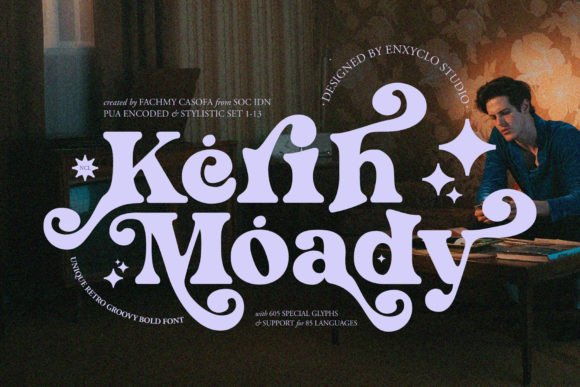
Behold Kerih Moady, the Retro Groovy Bold Font!
Dive into the enchanting world of Kerih Moady, a font that transports you to an era of boldness and flair. Enxyclo, the creative mastermind behind this masterpiece, has meticulously crafted each character to exude a timeless charm, ensuring that your designs radiate personality and sophistication. Whether you're a seasoned designer or a passionate hobbyist, Kerih Moady is your ultimate companion for remarkable creations.
Unleash Your Creativity with Kerih Moady:
With Kerih Moady, you're not just downloading a font; you're embarking on a creative journey where imagination reigns supreme. Designed to thrive in large point sizes, Kerih Moady captivates audiences with its commanding presence. Yet, it retains its captivating allure even in smaller sizes, making it a versatile choice for a wide range of projects.
Make a Statement with Kerih Moady:
From elegant wedding invitations and logos to eye-catching headlines, billboards, and website designs, Kerih Moady effortlessly elevates your creations. Its bold and groovy nature makes it an ideal choice for branding and logos, ensuring your brand stands out with a distinct identity.
Kerih Moady: A Font for Every Occasion:
No matter the theme or style of your project, Kerih Moady seamlessly adapts, becoming an integral part of your artistic vision. Its versatility extends to magazines, posters, and titles, adding a touch of retro charm to any design.
Embrace the Ease of Kerih Moady:
With Kerih Moady's PUA encoding, accessing its amazing glyphs and ligatures is a breeze. Effortlessly incorporate these embellishments into your designs, adding intricate details that captivate and inspire.
Elevate Your Designs with Kerih Moady:
Kerih Moady is more than just a font; it's an investment in your creative arsenal. Its ability to transform ordinary designs into captivating masterpieces makes it an indispensable tool for any designer seeking to make a lasting impression.